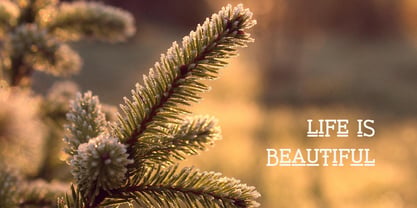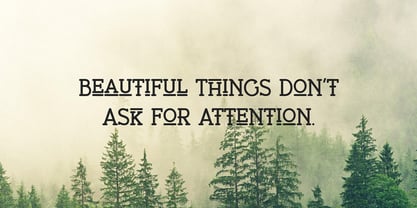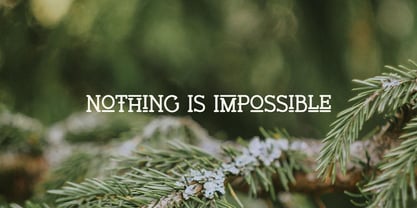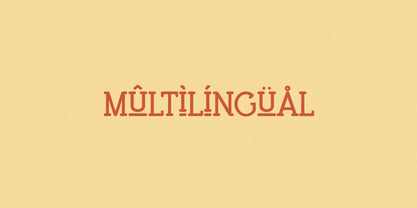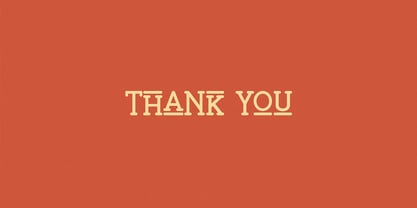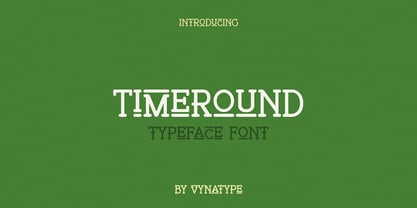
Timeround
by Vyantype Studio
The Timeround Font Family was designed by Hero Novyanto and published by Vyantype Studio. Timeround contains 1 styles. More about this family
Discover vintage typewriter fonts that embody classic design aesthetics. Featuring attractive multilingual support and various characters, this font allows designers to seamlessly integrate it with illustrations or logos, especially in vintage or classic styles. It exudes a bold character, perfectly capturing the essence of timeless design while remaining relevant for contemporary applications. Its versatility makes it ideal for branding, packaging, and user interfaces, ensuring it meets the demands of modern design projects.
Designers: Hero Novyanto
Current Foundry: Vyantype Studio